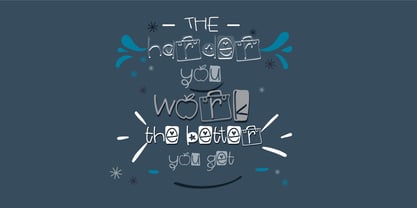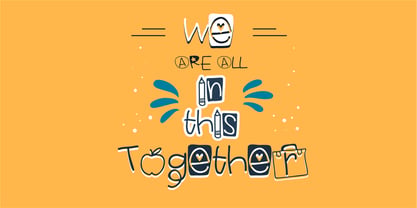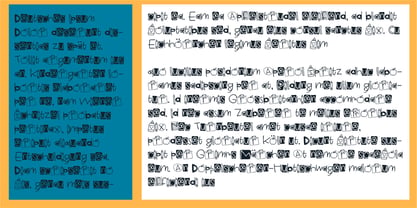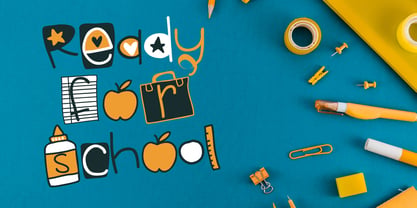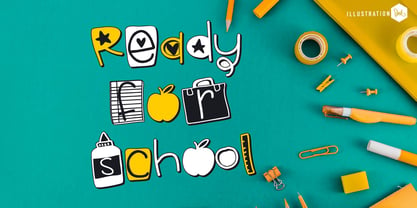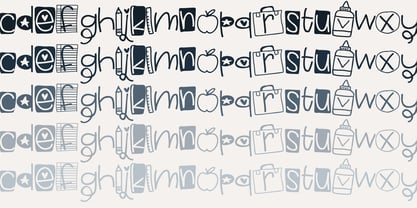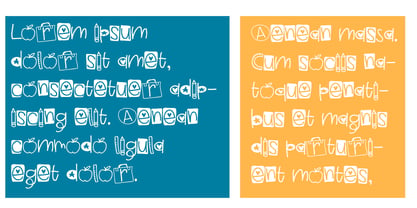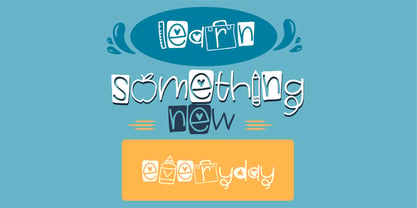
PN Ready For School
by Illustration Ink
The PN Ready For School Font Family was designed by Illustration Ink and published by Illustration Ink. PN Ready For School contains 4 styles and family package options. More about this family
This hand-crafted font is hand-printed with a youthful feel and many letters are illustrated to look like school supplies. Hand-crafted fonts can be either formal or informal, and they can be used for a variety of purposes. Some of the characteristics of handwritten fonts include: The letters are not perfectly uniform in size or shape. There may be slight variations in the spacing between letters and words. The font may have a "wiggly" or "squiggly" appearance. The font may be difficult to read at small sizes. Handwritten fonts can be a great way to add a casual touch to your designs. They can also be used to create a sense of nostalgia or whimsy. However, it is important to choose a handwritten font that is appropriate for the project you are working on. A formal handwritten font may not be appropriate for a casual invitation, while an informal handwritten font may not be appropriate for a corporate document.
PN Ready For School